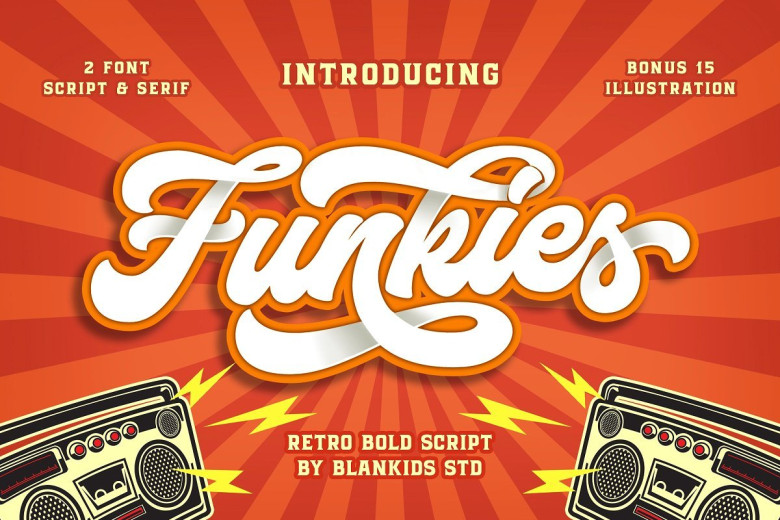
Funkies Bold Script Font
Dear Font Lovers! This font made with love to make your new year more blushing. Introducing Funkies Font. It is designed and shared by Blankids Studio. Funkies – is a new retro bold script. Bring back to the 70’s era Funkies inspired by posters and album covers of funk, disco and rockabilly music with bold and fun style. Funkies came with open type features such stylistic alternates, stylistic sets, swash & ligatures good for logotype, poster, badge, book cover, tshirt design, packaging and any more.